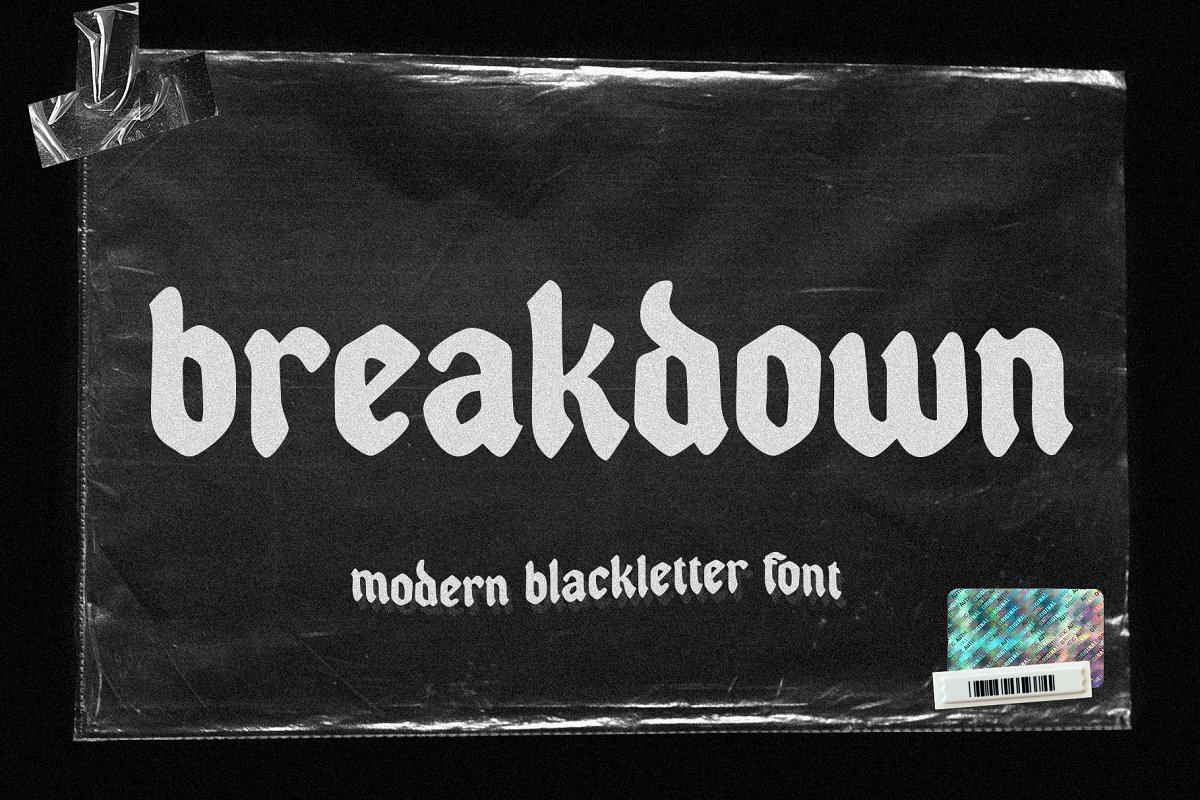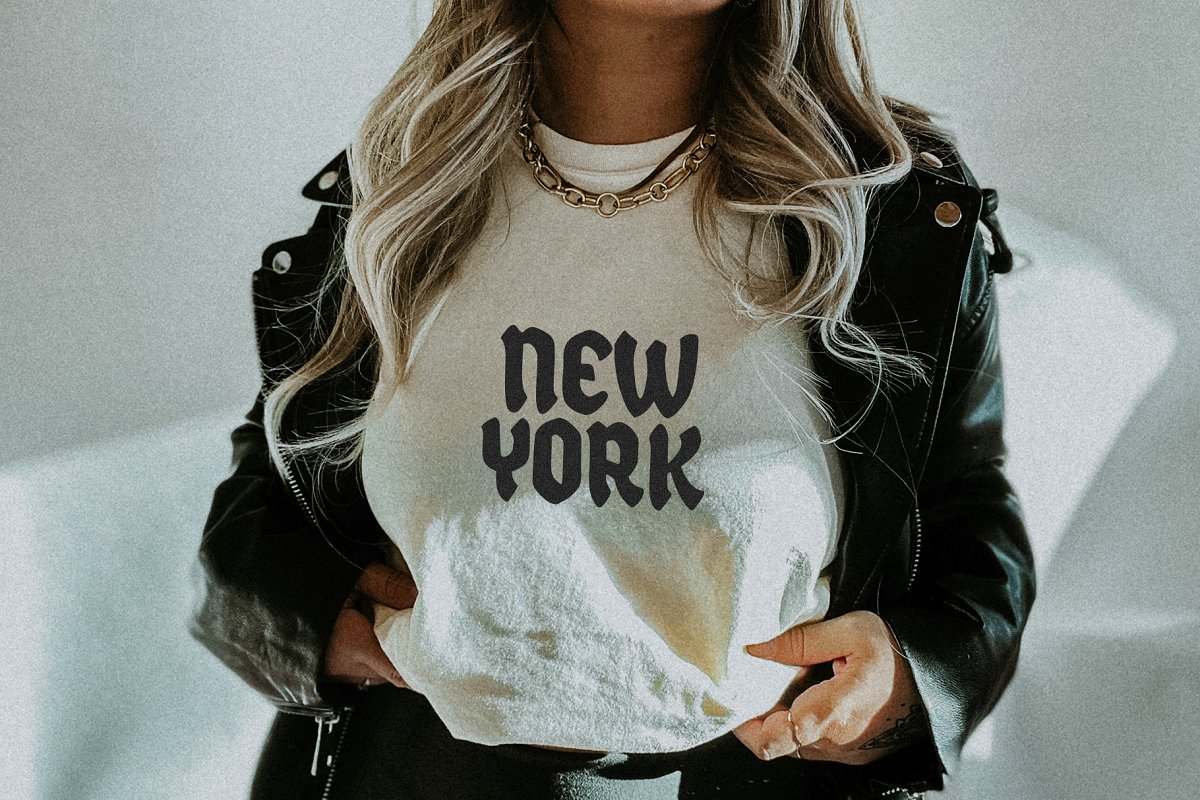
About the Breakdown Modern Blackletter Font
Breakdown is a modern look to a classic, This blackletter font is perfect for logos, branding, packaging, advertisements, shirts, mugs, hats, stickers, music covers and more!Includes OTF/TTF filesThank you!